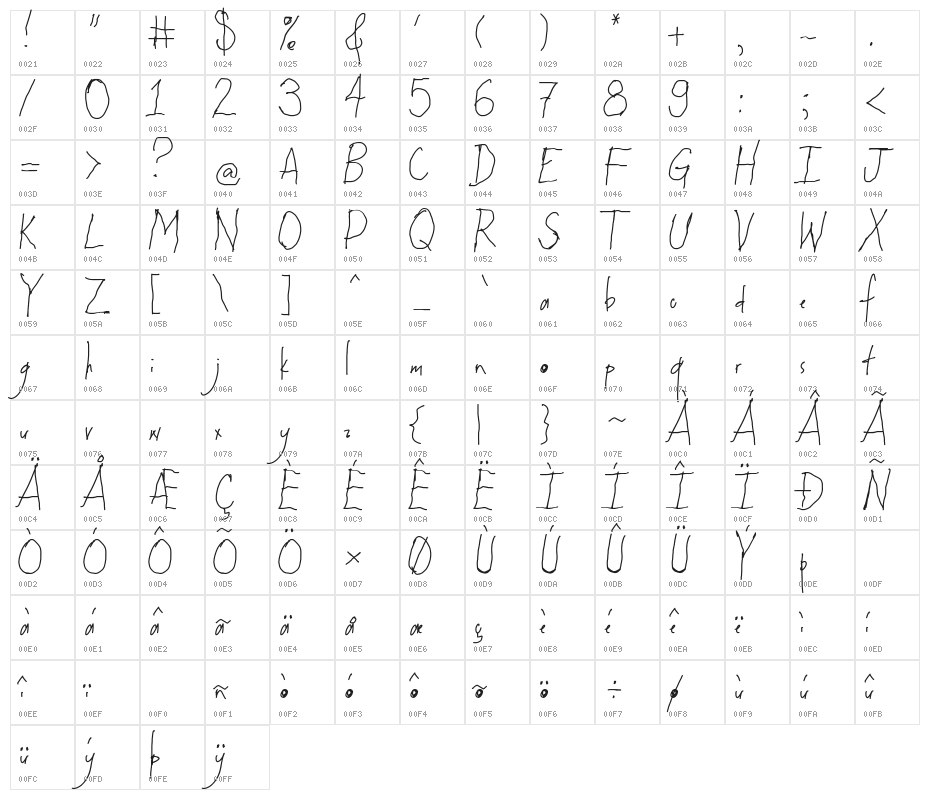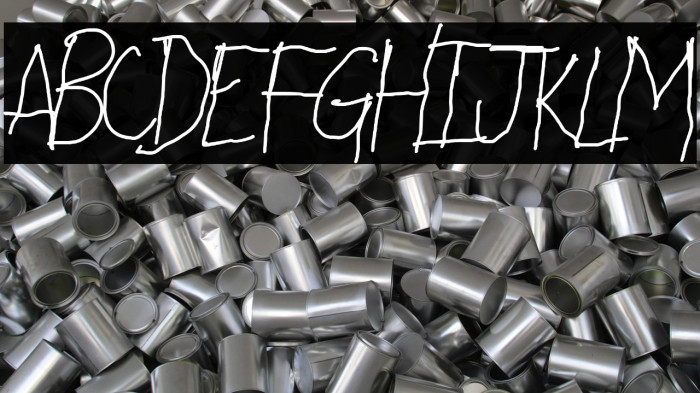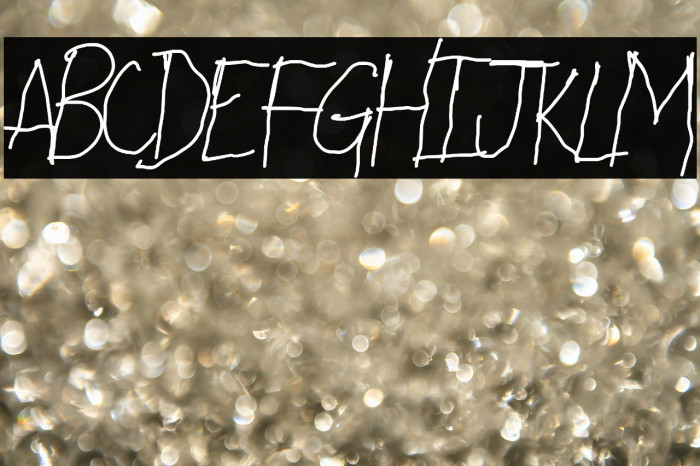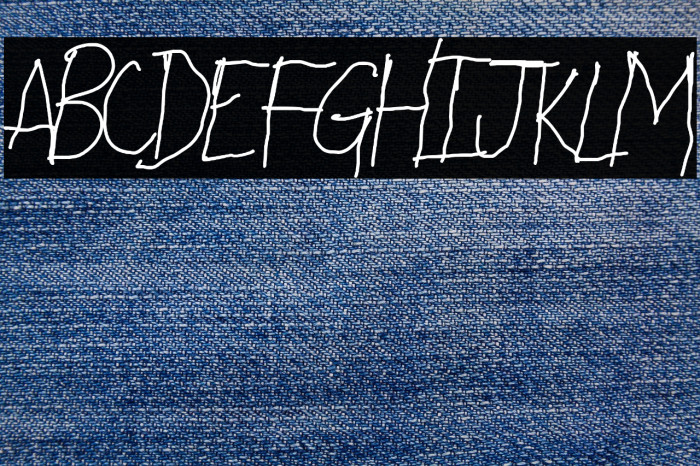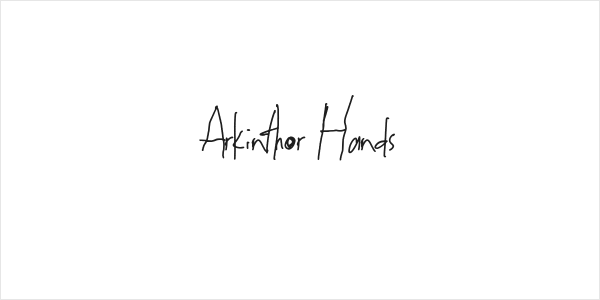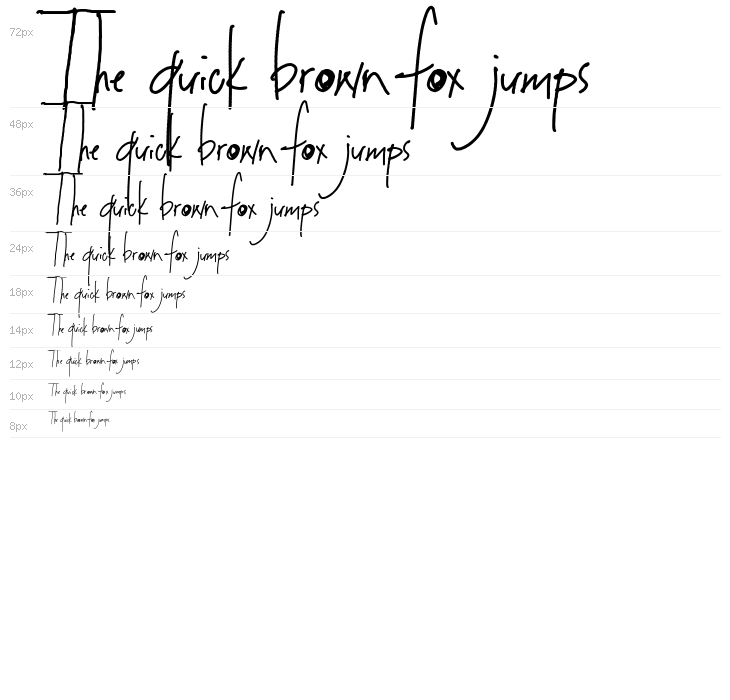
Arkinthor Hands Font
Arkinthor Hands Description
A highly expressive, rough, and sketchy handwritten font with irregular line thickness and exaggerated ascenders and descenders, giving it a raw, spontaneous appearance. The characters are tall, narrow, and loosely spaced, with a casual, almost chaotic feel.
| Overall Style | Decorative, expressive, raw, chaotic |
| Use Case | Logos, headlines, posters, creative projects |
| Proposed Projects | Album covers, horror or thriller movie posters, zines, alternative comics, edgy branding, creative event flyers. |